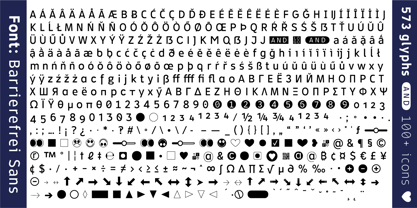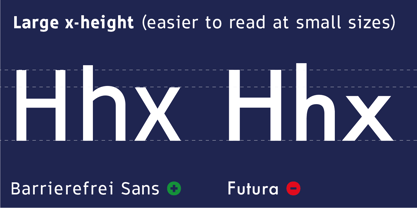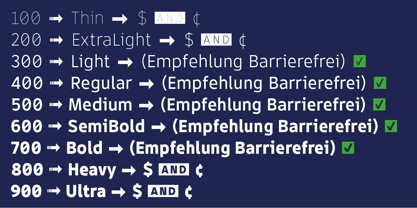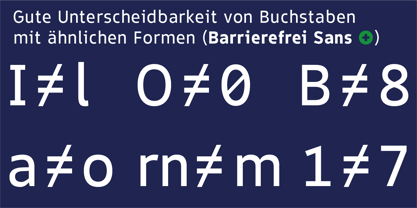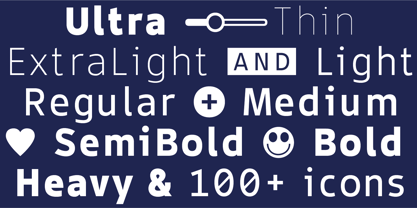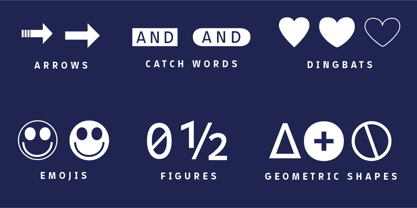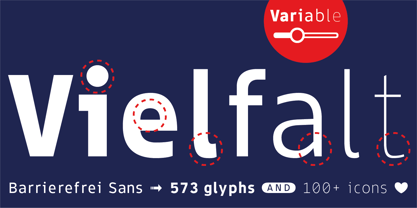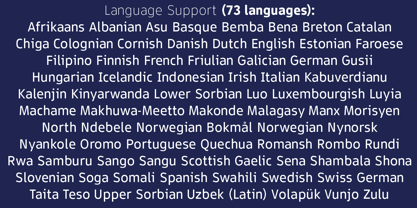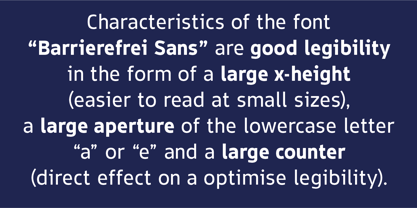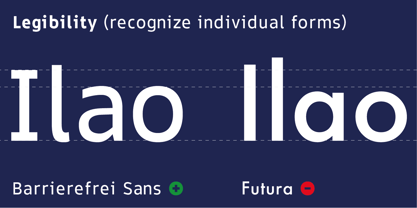
Barrierefrei Sans Variable
The variable typeface Barrierefrei Sans (accessibility) is designed from 2020–2024 for the font foundry Typo Graphic Design by the type designer Manuel Viergutz for optimized legibility and readability.
9 font-styles (Thin, Extra Light, Light, Regular, Medium, SemiBold, Bold, Heavy, Ultra) with 573 glyphs (Adobe Latin 2) incl. decorative extras like icons, arrows, catch words, dingbats, emojis, symbols, geometric shapes (type the word #LOVE for ❤ as OpenType-Feature dlig) and stylistic alternates (2 stylistic sets).
Characteristics of the font are optimized legibility in the form of a large x-Height (easier to read at small sizes), an large apertures (lowercase letter “a” or “e”), a large counter (direct effect on a optimise legibility) and the distinctiveness of individual letter shapes facilitates quick recognition. (l ≠ I or O ≠ 0).
For use in logos, packaging for drinks & food, magazines, posters, advertisement plus as webfont for decorative headlines. The font works best for text size & display size.
■ Font Name: Barrierefrei Sans (accessibility)
■ Font Styles: 9 font-styles (Thin, Extra Light, Light, Regular, Medium, SemiBold, Bold, Heavy, Ultra)
■ Font Cate­gory: Variable Sans Serif for head­line size + text size
■ Glyph Set: 573 glyphs (Adobe Latin 2 incl. decorative extras)
■ Specials: Capital Letter Sharp S (German Versal Eszett U+1E9E) ẞ, Catchwords like AND, Emojis like Smiley ☺, Symbols like Heart ♥︎, Variable Sans Serif Font
■ Design Date: 2020–2024
■ Type Desi­gner: Manuel Viergutz